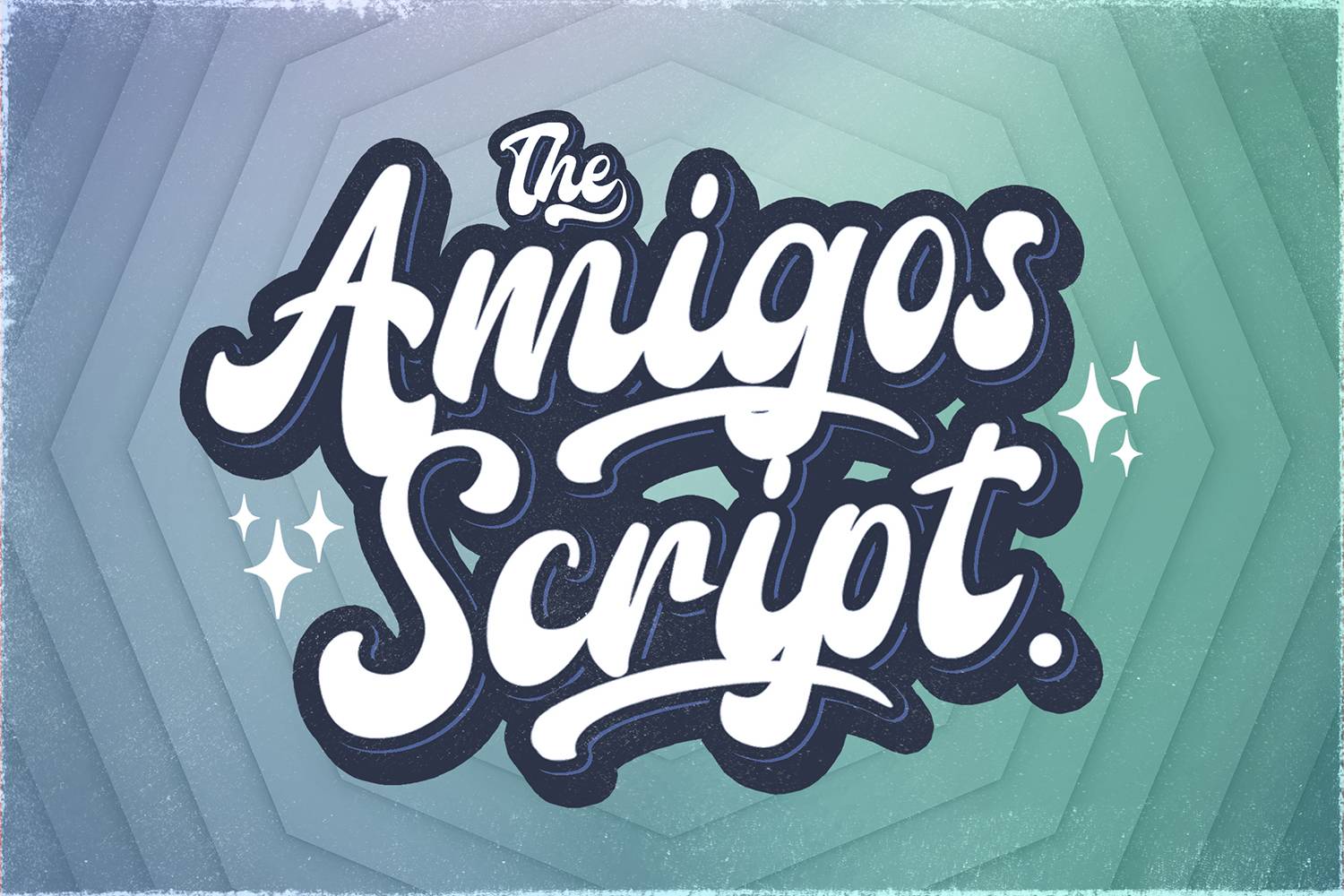
Amigos Script is a bold and lively script font with smooth, flowing strokes that create a friendly and playful vibe. Its thick and rounded letterforms, combined with a slightly condensed width and high contrast, make it perfect for eye-catching headlines, logos, and branding that seeks a fun and approachable personality. This font works especially well for creative projects looking to convey warmth and charm with a modern handwritten feel.
Amigos Script Font
About Amigos Script Font